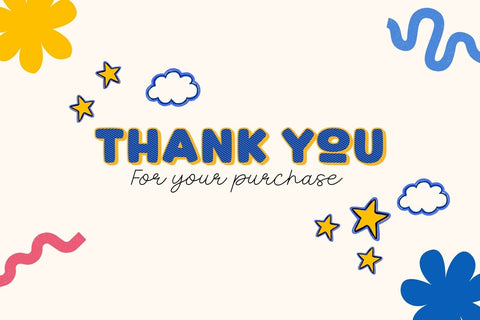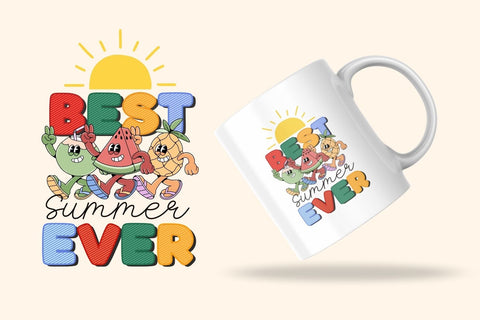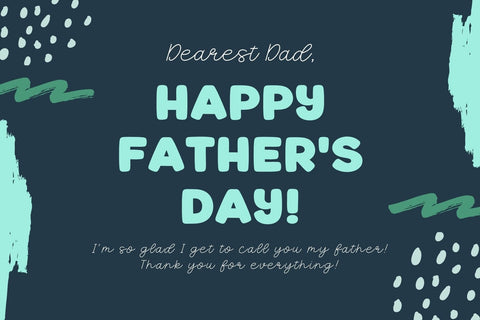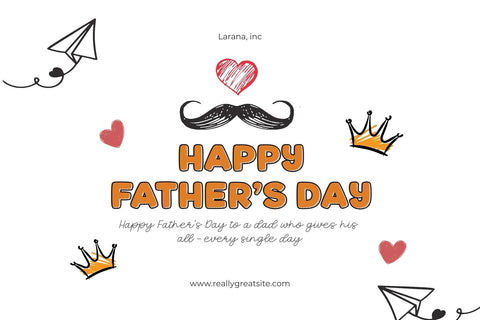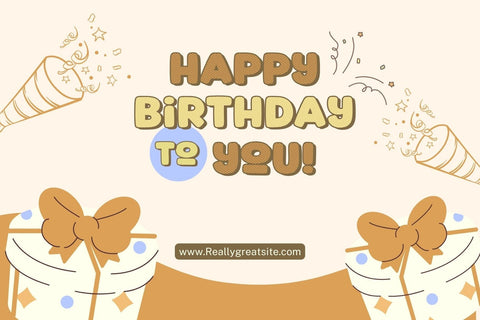
Fox Joliette and Fox Nibbly Font
Get ready to add a pop of cuteness and charm to your creative projects with Fox Joliette + Fox Nibbly – a delightful font duo inspired by retro cartoons, kawaii style
This font family includes 5 fun and versatile styles that are perfect for children’s books, packaging, branding, party invitations, social media posts, and more!
ꕥ Fox Nibbly Regular – Bold, bubbly letters full of personality
ꕥ Fox Nibbly Outline – A clean outline version perfect for layering or coloring
ꕥ Fox Nibbly Shadow – Adds playful depth to your text
ꕥ Fox Nibbly Strokes – A unique hatched-line texture for fun variety
ꕥ Fox Joliette Script – A sweet, handwritten cursive for stylish pairings
Bring joy, warmth, and retro vibes into your next project with the Fox Joliette + Fox Nibbly Font Family!